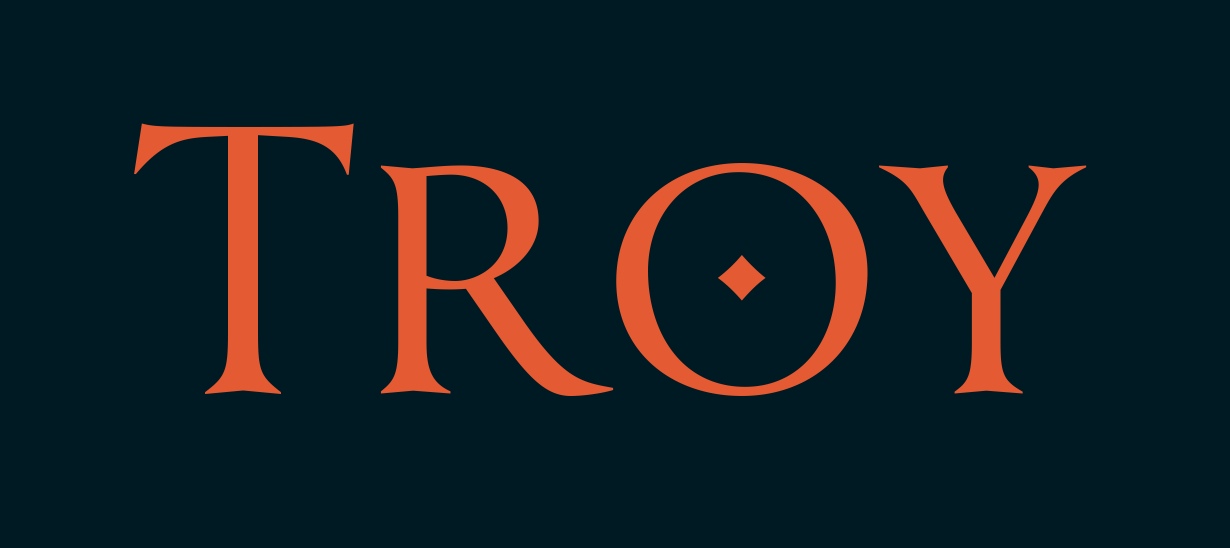
Troy Font
Troy Font is perfect for ancient civilization museums, classical history publications, archaeological research materials, epic movie titles, legendary brand identities, heroic gaming interfaces, mythological book covers, and timeless cultural heritage projects.
What makes Troy Font exciting is its monumentally epic character that embodies the legendary power and enduring legacy of ancient Troy through majestically crafted letterforms that seem carved from the very stones of history's most famous citadel. The font features bold, architectural shapes with ancient details that evoke the heroic battles and timeless stories that have captivated humanity for millennia. Its legendary aesthetic and ancient authenticity make it perfect for brands that want to communicate epic grandeur, heroic determination, and the kind of immortal legacy that transcends time while creating memorable experiences that transport audiences to the age of heroes and legendary civilizations.
Troy Font family includes various epic weights such as Regular, Medium, Bold, and Heavy variations, often featuring ancient-inspired alternates and mythological decorative elements. The family may include classical symbols, heroic ornaments, and legendary ligatures that enhance the font's epic aesthetic, providing designers with comprehensive options for creating powerful typographic compositions that capture the essence of ancient heroism and legendary storytelling.